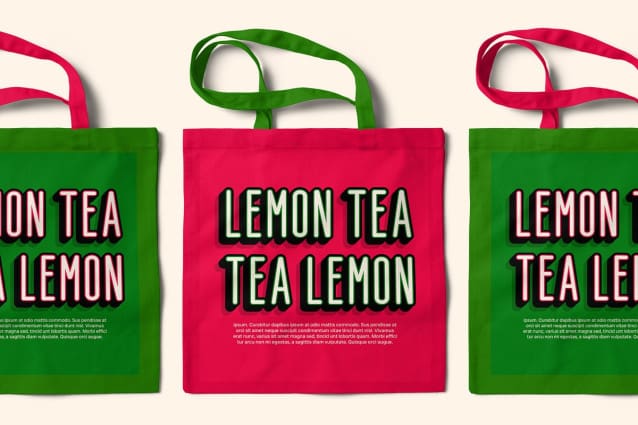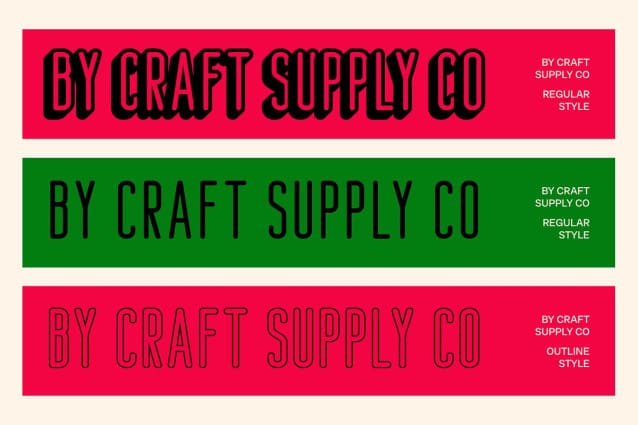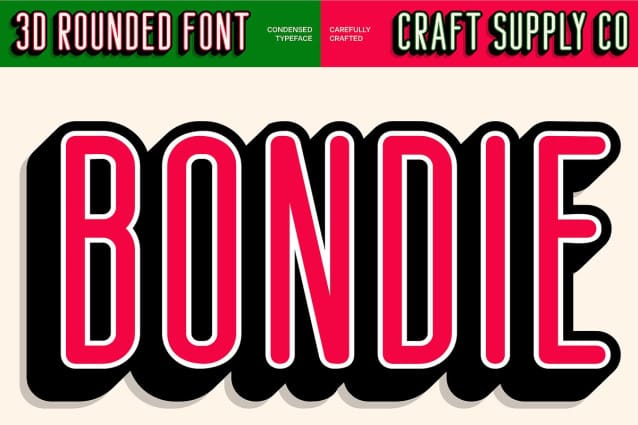
Bondie Rounded 3D Font
Bondie Rounded 3D Font is a modern sans-serif font featuring condensed, rounded shapes that create a sleek and contemporary look. Its design is both clean and approachable, making it ideal for tech branding and innovative packaging.
Dynamic 3D Effect for Visual Impact Experience the perfect blend of clarity and visual impact with Bondie Rounded 3D. The dynamic 3D effect adds depth and dimension, elevating the font’s modern aesthetic and ensuring it stands out in any design.
Versatile for Tech and Innovative Designs Bondie Rounded 3D is ideal for a range of cutting-edge applications, from tech branding and promotional materials to innovative packaging. Its combination of sleek, condensed forms and engaging 3D effects makes it a versatile choice for modern, impactful designs.
Enhance Your Design Bring a contemporary edge to your projects with Bondie Rounded 3D. Its condensed, rounded shapes and dynamic 3D effect provide both clarity and visual appeal, making it the perfect choice for designs that require a modern and innovative touch.